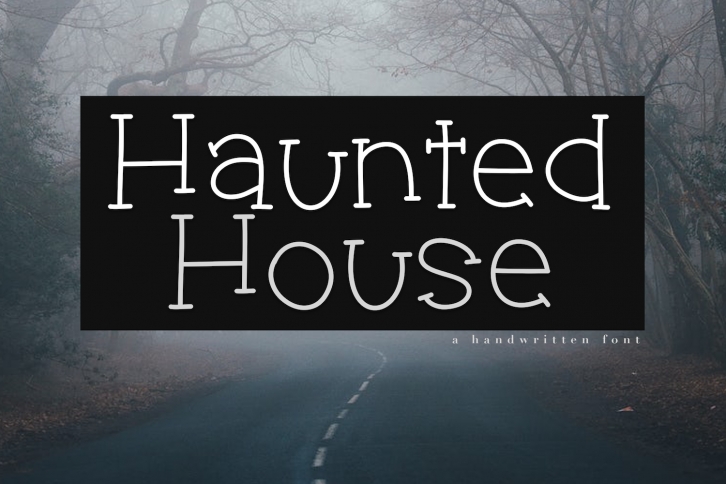
Haunted House is a trendy and unique font with an authentic style. It was designed by KA Designs and it's a great choice for creative people who need such a font. It was released on September 6, 2018 and the file size is 18.48 MB. Haunted House will add an organic vibe to any design idea!